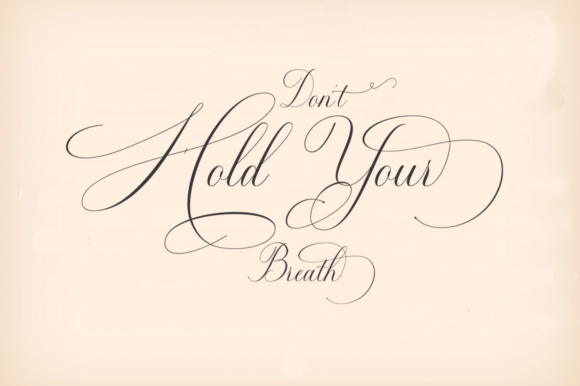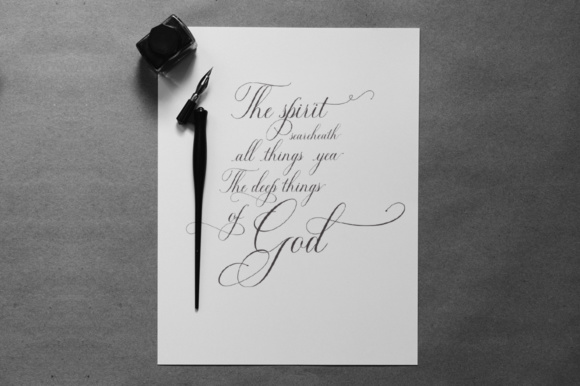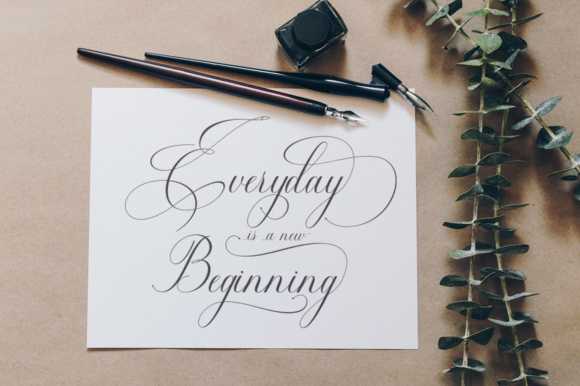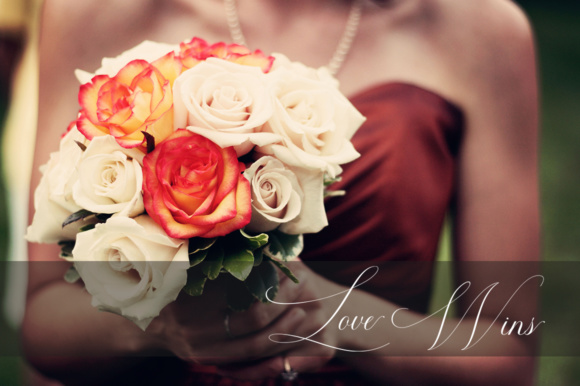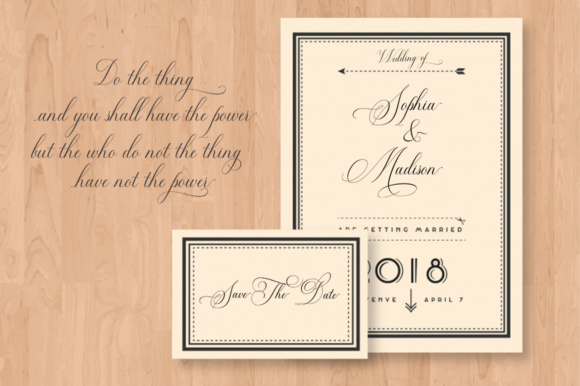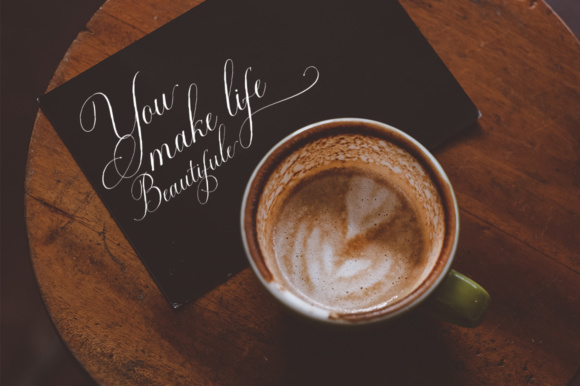
The Elegance of Blueprint Font: A Designer’s Delight
I still remember the day I stumbled upon the perfect font for a client’s wedding invitation project. I had been searching for hours, trying out different fonts, but none seemed to capture the elegance and sophistication I was looking for. That was until I discovered Blueprint, a gorgeous calligraphy font that instantly became my go-to. In this article, I’ll share my experience with Blueprint, its features, and how to make the most of this stunning font.
An Honest Review of Blueprint Font
What I Love About Blueprint Font ✨
- 💫 Elegant and sophisticated design, perfect for high-end projects
- 🔥 Beautiful alternative characters that add a touch of uniqueness
- ✅ Easy to read and works well in various sizes
- 🎨 Highly versatile, suitable for a wide range of design projects, from wedding invitations to branding
While Blueprint is an exceptional font, there are a few things to keep in mind:
- 🤔 Some characters may require manual adjustment for optimal spacing
- ⚠️ Limited availability of Cyrillic and non-English characters
The Story Behind Blueprint Font
Blueprint was crafted by a talented type designer who aimed to create a font that embodies elegance and sophistication. Inspired by traditional calligraphy, the designer poured their heart and soul into creating a font that’s both beautiful and functional. With its gorgeous alternative characters and elegant design, Blueprint is sure to become a favorite among designers and crafters.
Q: Does Blueprint support OpenType features?
Yes, Blueprint supports OpenType features, including stylistic alternates, glyphs, and more. This allows you to add unique touches to your design and make it stand out.
Q: Is Blueprint easy to read?
Yes, Blueprint is designed to be elegant and easy to read, making it suitable for a wide range of design projects.